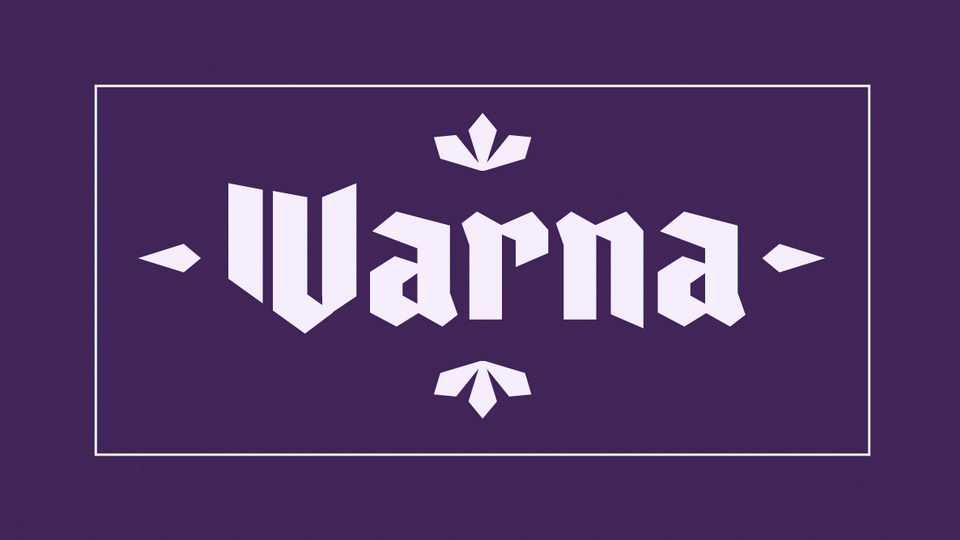
Download Varna font, a modern blackletter typeface inspired by designer/artist Viktor Antonov, who’s signature style is an amalgamation of classic and modern, rustic and high-tech.
Designer: Eimantas Paškonis